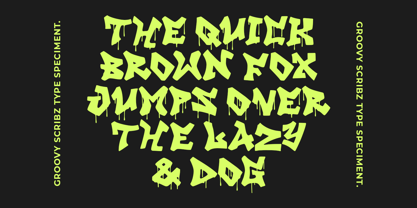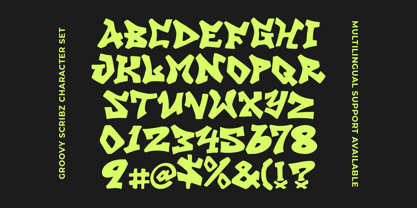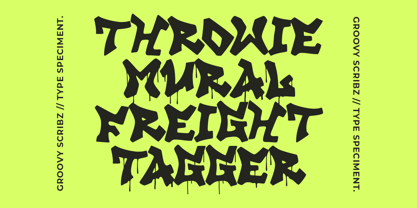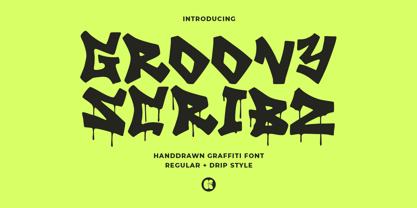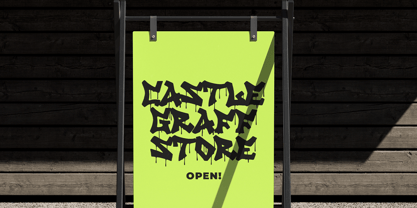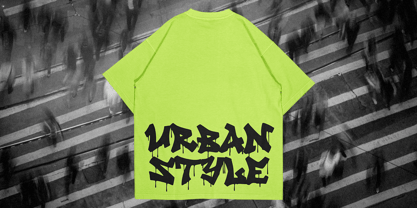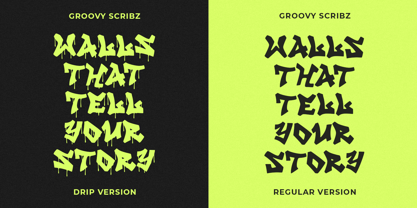
Groovy Scribz
por Groovy Font
La familia tipográfica Groovy Scribz fue diseñada por Ahmad Ginanjar Riyadi y publicada por Groovy Font. Groovy Scribz contiene 2 estilos y opciones de paquete familiar. Más información sobre esta familia
Groovy Scribz is a vibrant and expressive handdrawn graffiti font that captures the essence of street art. Inspired by the bold and dynamic writings found on city walls, this font exudes an urban and edgy vibe.
With two versions available - regular and drip style - Groovy Scribz offers versatility and creativity for any design project. Let your text come alive with this captivating and unique font that adds a touch of rebellious energy to your work.
Diseñadores: Ahmad Ginanjar Riyadi
Fundición: Groovy Font